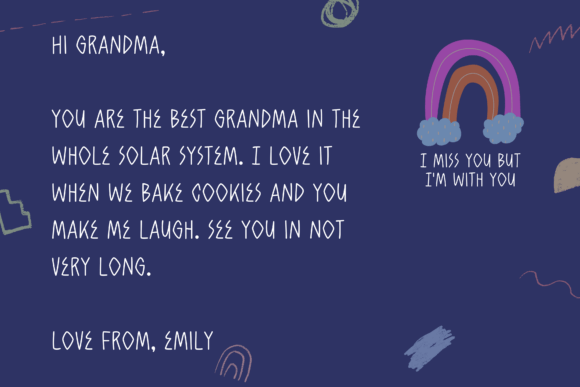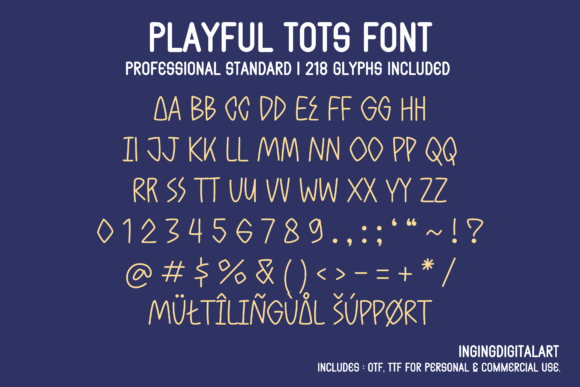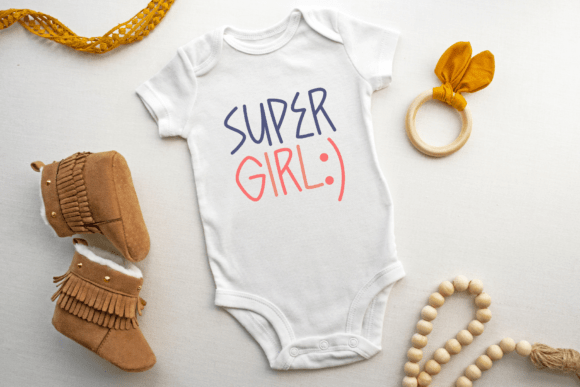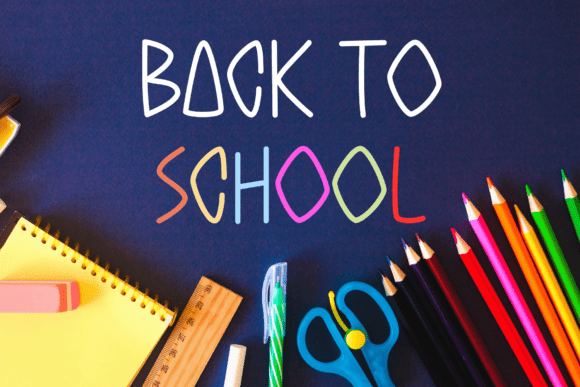
Introduction to Playful Tots Font
Have you ever stumbled upon a perfect font while browsing through a design blog or social media, and suddenly, your creative project comes to life? For me, that moment happened when I discovered the delightful Playful Tots Font. Its simple and cute handwriting style immediately caught my attention, and I knew I had to share it with fellow designers and creatives.
As a designer, I’m always on the lookout for high-quality fonts that can elevate my projects and add a personal touch. The Playful Tots Font is a valuable resource for anyone looking to add a playful and whimsical feel to their branding, decor crafts, invitations, or digital planning. With its transparent background and wide range of glyphs, including all-caps letters, numbers, and international characters, this font is a must-have in any designer’s toolkit.
Key Features of Playful Tots Font
- Unique, high-quality design ideal for a creative project, such as children’s educational materials or a nursery theme.
- Playful Tots Font features a transparent background, allowing for easy layering and customization in design applications.
- Perfect for designers working on a children’s book, a nursery website, or any other project requiring a fun and playful font.
Honest Review: Playful Tots Font
I recently had the chance to experiment with the Playful Tots Font for a creative project, and I must say it’s been a delightful experience. This high-quality font is perfect for designing engaging and playful materials, especially when you need a fun, childlike vibe.
One of the standout features of the Playful Tots Font is its transparent background, which makes it incredibly versatile and easy to use. This design resource is a must-have for anyone working on projects that require a whimsical touch.
- Its unique and quirky style makes it perfect for creative projects that need a bit of whimsy.
- The transparent background allows for seamless integration with other design elements.
- The font may not be ideal for professional or corporate projects, as it can come across as too playful or immature.
- The number of glyphs and characters is somewhat limited, which may restrict its use in certain situations.
Overall, I’m quite impressed with the Playful Tots Font, and I would definitely recommend it to designers who are working on creative projects that require a lighthearted touch.
To get the most out of the Playful Tots Font, be sure to pair it with a transparent background to create a clean and modern design. You can also experiment with different font sizes and colors to create a unique look that suits your project.
The Playful Tots Font is perfect for a variety of creative projects, including children’s book illustrations, educational materials, and marketing materials for kids’ brands. It’s also a great choice for designers looking for a fun and playful font to add some personality to their designs.